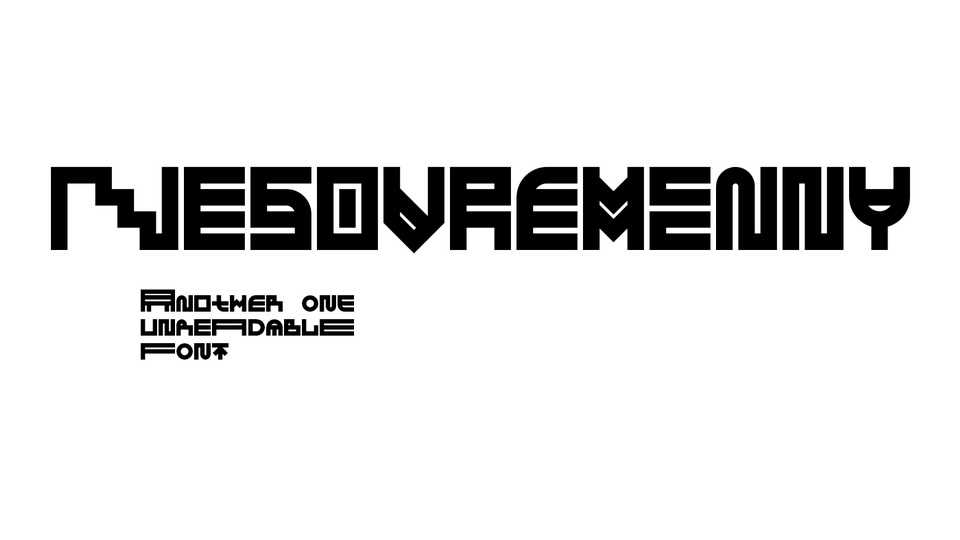
Download Nesovremenny font, a display typeface which contains lots of alternates for getting interesting patterns with the help of their combinations.
Designer: Alexey Atapin